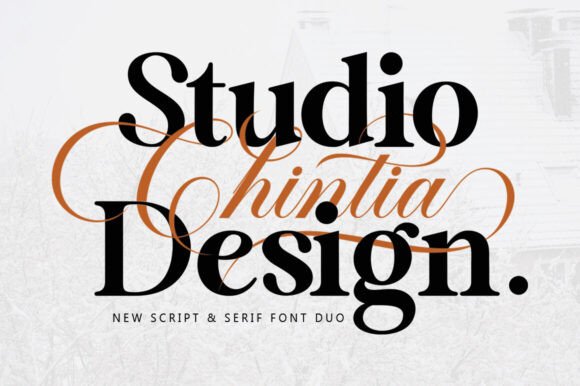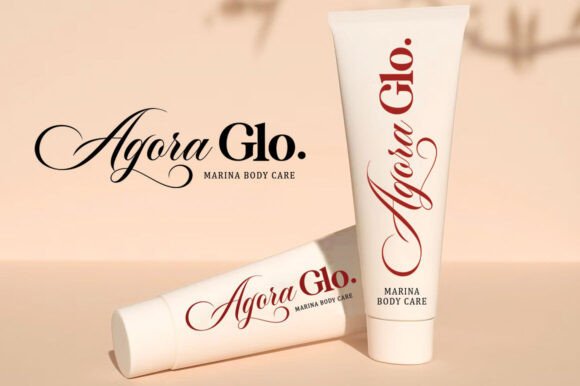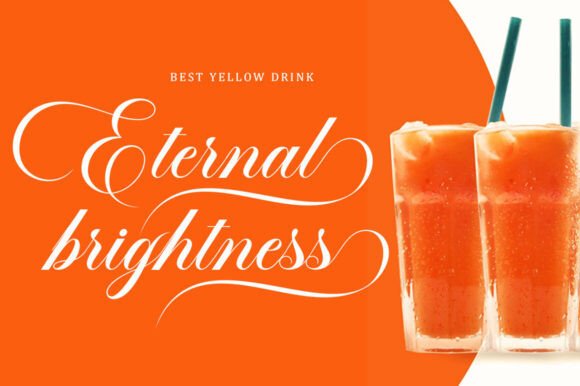
Baliya Mangon Font
About the Baliya Mangon Font
Experience the unique personality of Baliya Mangon Font, a font designed for impact. Introducing a New Font Duo. This timeless serif and fancy script font are designed perfectly for each other – not only are they strong standalone fonts, but they pair beautifully when placed side by side. Feeling creative? The two can even be mixed together in the same word for an even more interesting layout, giving you a versatile set of fonts that you can use & love across a variety of design projects.
Baliya Mango is perfect for so many projects, for modern or even retro vintage designs, branding, logos, crafts, stickers, sublimation, wedding invitations, and more. This font is suitable for a variety of projects such as logos, branding, magazines, signage, fashion, and so much more.
Baliya Mangon Font Usage Examples
Baliya Mangon Font Example